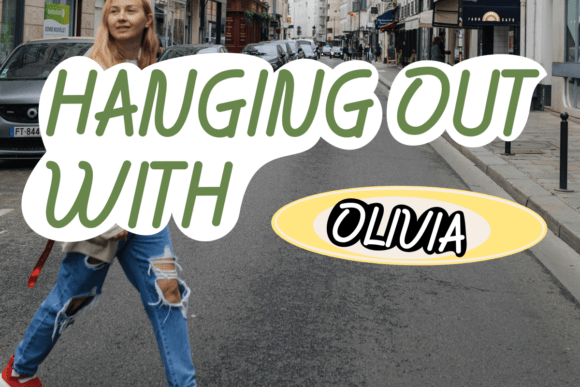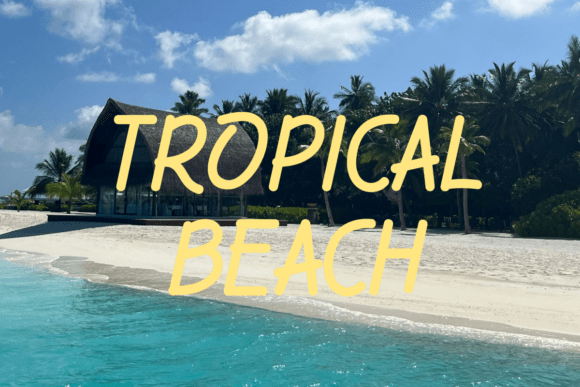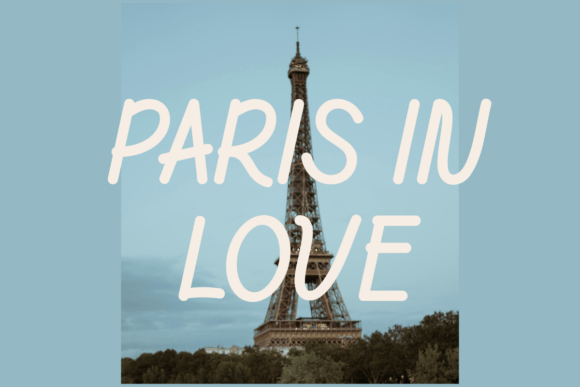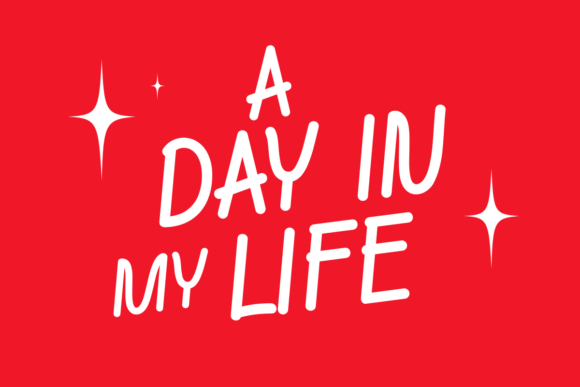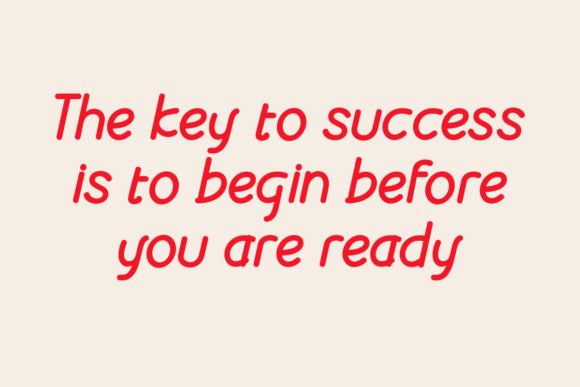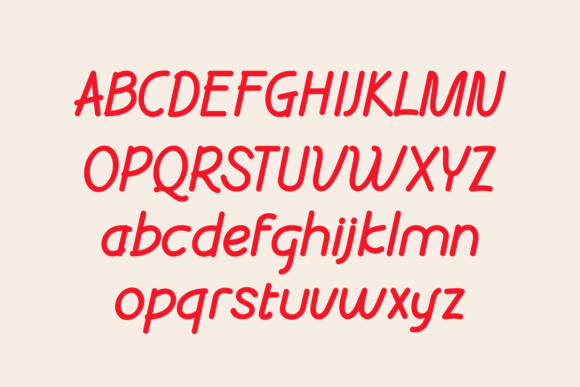
The Moment of Truth: Finding the Perfect Font
I still remember the countless hours I spent on a branding project, searching for the ideal font to capture the essence of a new eco-friendly product line. My client wanted a font that exuded warmth, friendliness, and a touch of playfulness. I tried font after font, but none seemed to strike the right balance. That was until I stumbled upon Aurea Valle Regular Font. ✨
With its smooth strokes, rounded curves, and fluid letterforms, Aurea Valle instantly resonated with my client’s vision. The font’s slight slant adds a sense of energy and movement, making it perfect for a brand that aimed to convey approachability and modernity. In this article, I’ll share my experience with Aurea Valle, its features, and how to make the most of it in your designs.
An Honest Review of Aurea Valle Regular Font
- ✨ Playful yet sophisticated tone: Aurea Valle effortlessly balances friendliness and elegance, making it suitable for various design projects.
- ✅ Smooth strokes and fluid letterforms: The font’s rounded curves create a natural rhythm, adding a touch of warmth to any design.
- 🌈 Versatility: Aurea Valle adapts seamlessly from cheerful headlines to inviting logotypes, making it a great choice for branding, packaging, posters, and social media graphics.
While Aurea Valle is an excellent font, there are a few minor considerations to keep in mind:
- ⚠️ Limited use in formal contexts: Aurea Valle’s playful nature might not be suitable for very formal or traditional designs.
- 🤔 Legibility at small sizes: As with many script fonts, Aurea Valle may lose some legibility when used at very small sizes.
The Designer Inspiration Behind Aurea Valle
Aurea Valle was designed with the intention of creating a font that radiates warmth and approachability. Its creator aimed to craft a font that feels both modern and personal, making it perfect for designers who want to add a touch of elegance and playfulness to their work.
Q: What makes Aurea Valle unique?
A: Aurea Valle’s unique blend of rounded curves, smooth strokes, and a slight slant creates a natural rhythm and a sense of energy, making it stand out from other fonts.
Q: Is Aurea Valle suitable for body text?
A: While Aurea Valle is primarily designed for display use, it can be used for short paragraphs of body text. However, for longer texts, a more traditional serif or sans-serif font might be more legible.